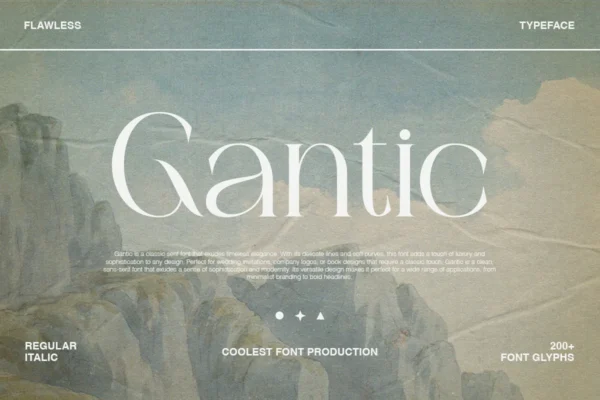
Gantic Font – Modern Serif Font
Gantic Font – a meticulously crafted semi-serif typeface blending delicate lines and soft curves for timeless sophistication. Perfect for luxury invitations, high-end logos, editorial designs, or cinematic titles, Gantic offers versatility with 200+ glyphs, including regular and italic styles. Its modern yet classic aesthetic adds a touch of scientific precision and elegance, ideal for brands seeking a premium, versatile identity. Whether for print, digital media, or corporate branding, Gantic elevates your project with clean, adaptable design.
Gantic Font – Modern Semi-Serif Typeface for Luxury Branding & Editorial Design
Elevate your design projects with Gantic Font, a modern serif font that combines modern sophistication with timeless elegance. Designed with delicate lines and soft curves, Gantic is perfect for luxury branding, high-end logos, editorial layouts, and cinematic titles. Its clean, versatile design includes 200+ glyphs, offering both regular and italic styles to suit a wide range of creative applications.
Crafted for designers who value precision and aesthetics, Gantic Font adds a touch of scientific refinement to your work. Whether you’re creating wedding invitations, corporate branding, or book designs, Gantic ensures your project stands out with its unique blend of modernity and classic charm.
Key Features:
• 200+ Glyphs for extensive design flexibility
• Regular & Italic Styles for dynamic typography
• Versatile Use – ideal for logos, invitations, books, and more
• Premium Quality – clean, elegant, and professional
Why Choose Gantic Font?
Gantic Font is trusted by designers worldwide for its adaptability and premium quality. Its modern yet classic aesthetic makes it a go-to choice for projects requiring a touch of luxury and sophistication. Whether you’re a professional designer or a creative enthusiast, Gantic Font empowers you to create stunning, impactful designs with ease.
Perfect For:
• Luxury branding & logos
• Editorial & book design
• Wedding invitations & stationery
• Cinematic titles & posters
• Corporate & professional materials
Upgrade your typography game with Gantic Font – where modern design meets timeless elegance.